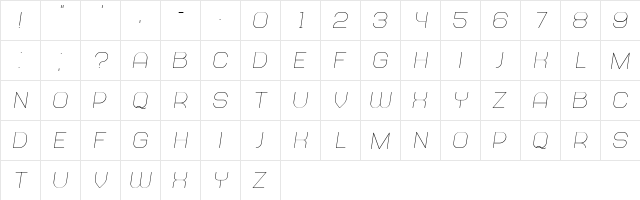
Abandoned Italic
Design Context for Abandoned Typeface
Abandoned is a composed and adaptable typeface that performs quietly and consistently across a wide range of design contexts. The dynamic lean of this cut emphasises speed and emphasis in any layout.
Pro Tip: Try Abandoned for annotation and caption copy alongside an upright companion — the contrast in angle creates a dynamic but ordered typographic system.